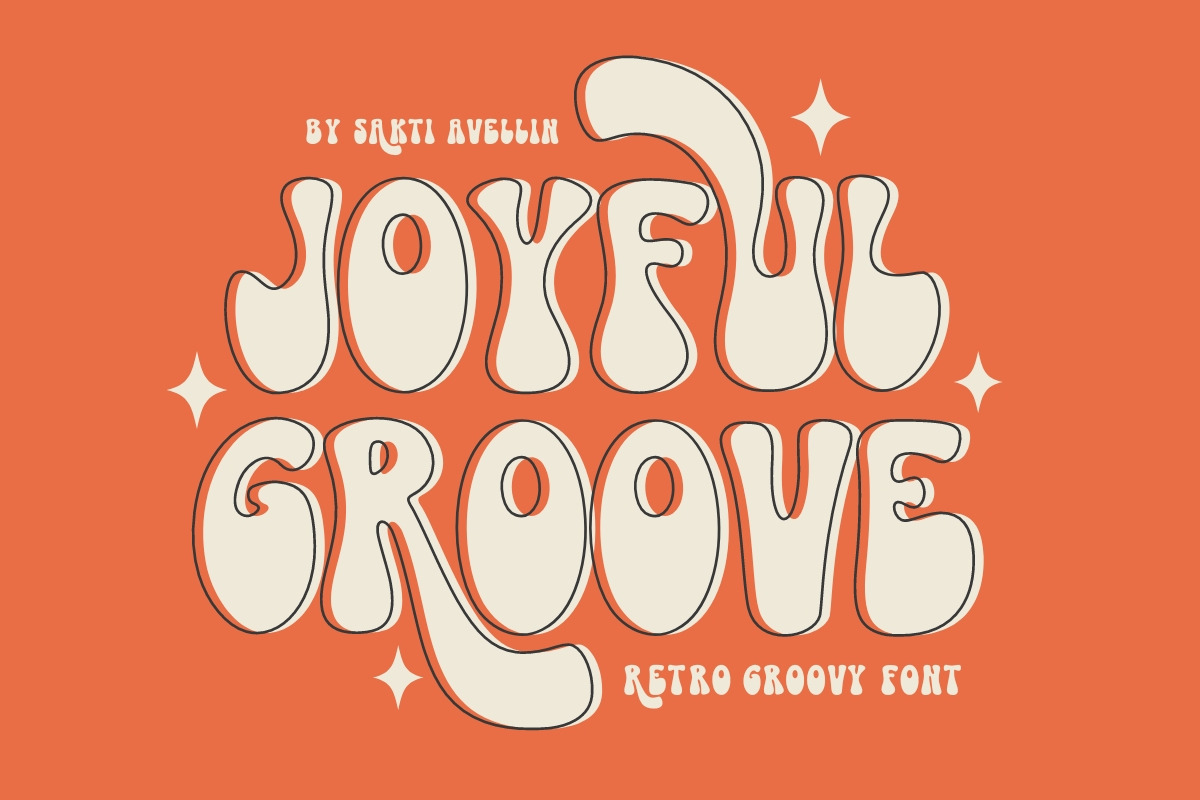
Joyful Groove - Retro Groovy Font
Joyful Groove is a vibrant, bold, and high-impact retro groovy font designed to bring a soulful 1970s energy to your creative projects. This bubbly display typeface features thick, wavy letterforms with a rhythmic, psychedelic bounce, making it an essential choice for retro branding, funky t-shirt prints, vintage posters, and eye-catching social media graphics. Its unique, liquid-like silhouette ensures it stands out as a powerful decorative font for headlines and product packaging, perfect for designers seeking a mix of disco-era charm and modern aesthetic funk. Elevate your designs with the vibrant and nostalgic spirit of Joyful Groove!